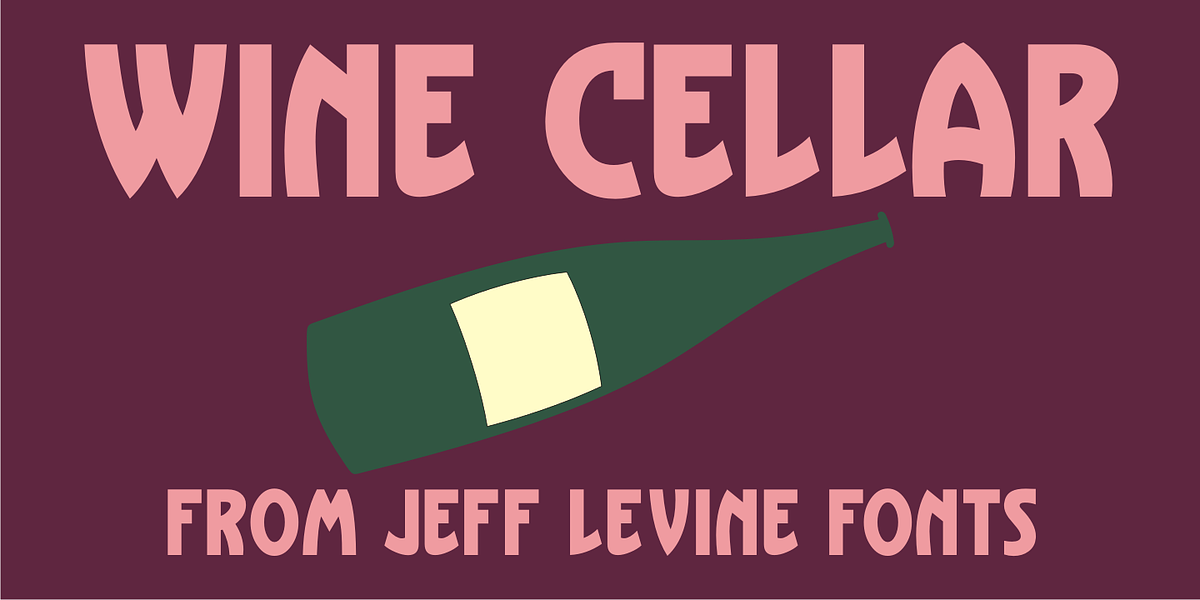
Wine Cellar JNL
Wine Cellar JNL is a bold, yet casual display face found on some 1930s-era sheet music entitled “Everybody Wants a Key to My Cellar”. Since the subject of the song had a number of good times underneath the house, it’s a fitting name for the font.
The hand lettering for the original song sheet showed strong influence of the 1920s and the Art Nouveau style, and has hints of the popular metal type “Hobo” in its character shapes.